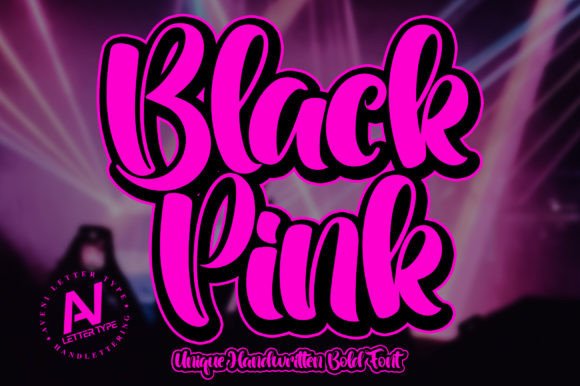
Discover the Charm of Black Pink Font: A Fun and Bold Handwritten Delight
Are you on the hunt for a font that exudes friendliness and playfulness? Look no further than the Black Pink Font! This delightful handwritten font is perfect for a variety of design projects, from crafts and digital design to presentations and greeting cards. In this article, we’ll dive into the world of Black Pink Font, exploring its unique characteristics, uses, and benefits.
The Personality of Black Pink Font
Black Pink Font is a fun and bold handwritten font that conveys impeccable friendliness. Its playful and carefree nature makes it an excellent choice for designers and crafters looking to add a personal touch to their work. Whether you’re creating a DIY project, a social media graphic, or a professional presentation, Black Pink Font is sure to bring a smile to your audience’s faces.
Uses for Black Pink Font
The versatility of Black Pink Font is one of its most appealing features. Here are just a few ideas for how you can use this delightful font:
- Crafts: Add a personal touch to your handmade crafts, such as scrapbooking, card making, and journaling.
- Digital Design: Use Black Pink Font in your digital designs, including social media graphics, blog posts, and website headers.
- Presentations: Add a playful touch to your presentations, making them more engaging and fun to read.
- Greeting Cards: Create one-of-a-kind greeting cards for special occasions, such as birthdays, holidays, and get-well wishes.
Benefits of Using Black Pink Font
So, why choose Black Pink Font for your design projects? Here are just a few benefits:
- Friendliness: Black Pink Font exudes warmth and friendliness, making it perfect for designs that require a personal touch.
- Versatility: This font is suitable for a wide range of design projects, from formal presentations to casual social media graphics.
- Easy to Read: The clear and legible script of Black Pink Font ensures that your message is conveyed clearly and effectively.
- Unique: Black Pink Font has a distinctive and eye-catching style that sets it apart from more traditional fonts.
Tips for Using Black Pink Font
To get the most out of Black Pink Font, here are a few tips to keep in mind:
- Use it sparingly: While Black Pink Font is fun and playful, it can be overwhelming if used excessively. Balance it with other fonts to create visual interest.
- Pair it with complementary fonts: Combine Black Pink Font with fonts that complement its playful style, such as sans-serif fonts or serif fonts with a similar feel.
- Experiment with colors: Black Pink Font looks great in a variety of colors, so don’t be afraid to experiment and find the perfect hue for your design.
In conclusion, Black Pink Font is a fun and bold handwritten font that conveys impeccable friendliness. Its versatility, ease of use, and unique style make it an excellent choice for designers and crafters looking to add a personal touch to their work. Whether you’re creating crafts, digital designs, presentations, or greeting cards, Black Pink Font has the potential to become your favorite go-to font. So why not give it a try and see the charm of Black Pink Font for yourself?
Get Creative with Black Pink Font
Ready to unleash your creativity with Black Pink Font? Here are some final tips to get you started:
- Experiment and play: Don’t be afraid to try new things and experiment with different design projects.
- Share your work: Show off your creations on social media or design communities to inspire others and get feedback.
With Black Pink Font, the possibilities are endless! So go ahead, get creative, and have fun with this delightful handwritten font.